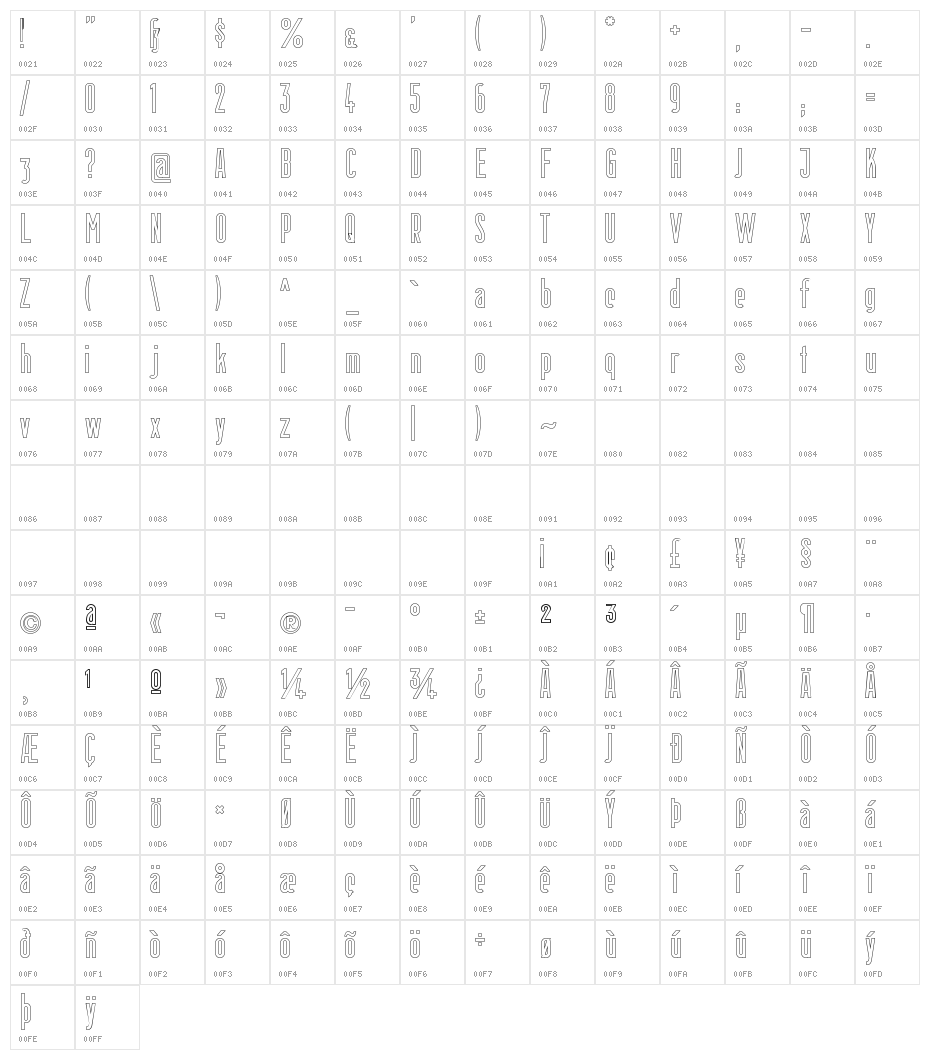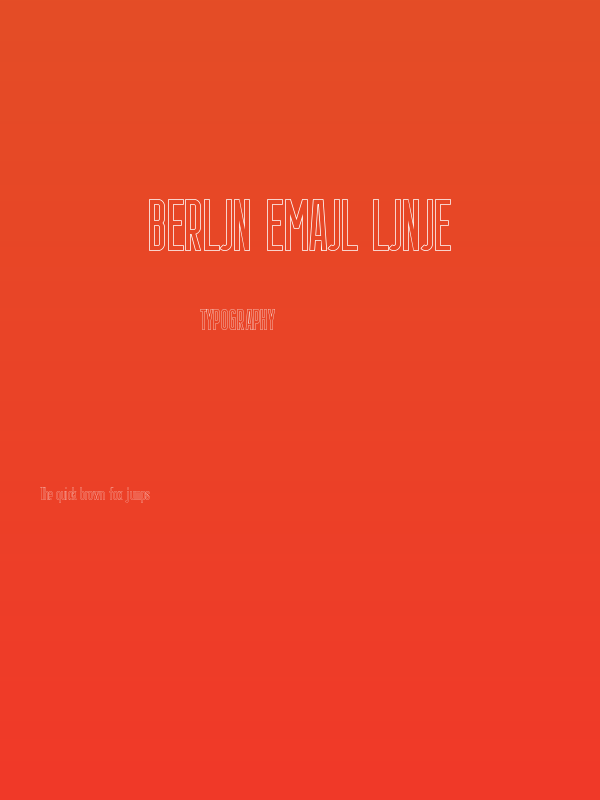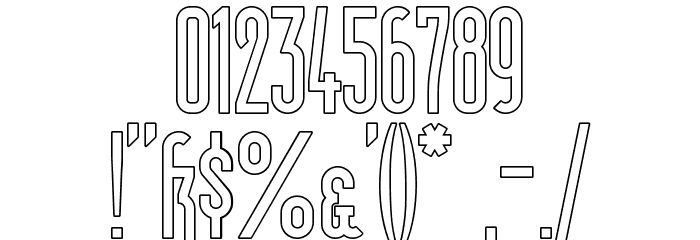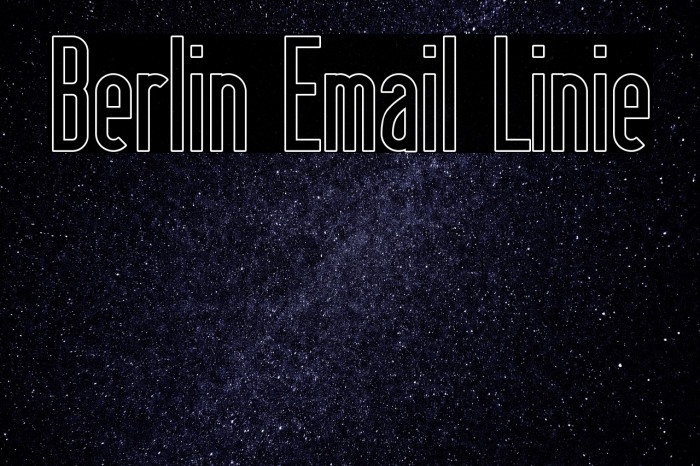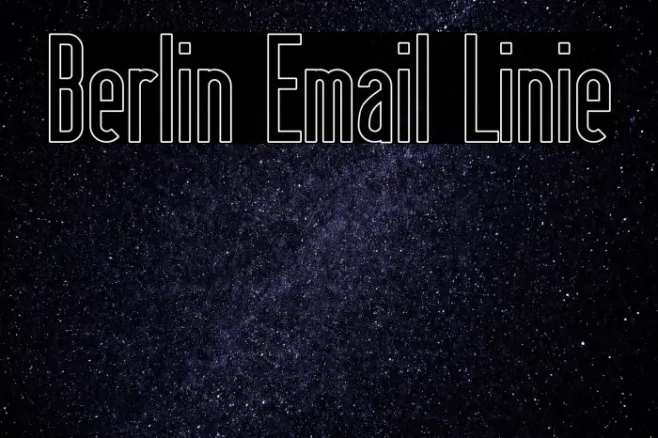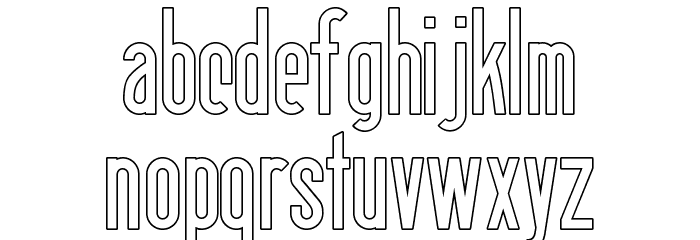
Berlin Email Linie Font
Berlin Email Linie Description
This font features a modern, geometric design with clean lines and a structured appearance. The uppercase and lowercase letters are uniform in height, creating a cohesive look. The characters are outlined, giving them a hollow appearance that adds a unique, artistic flair. The numerals and special characters maintain the same style, ensuring consistency across all elements. This font's design is both contemporary and versatile, making it suitable for a variety of creative projects.